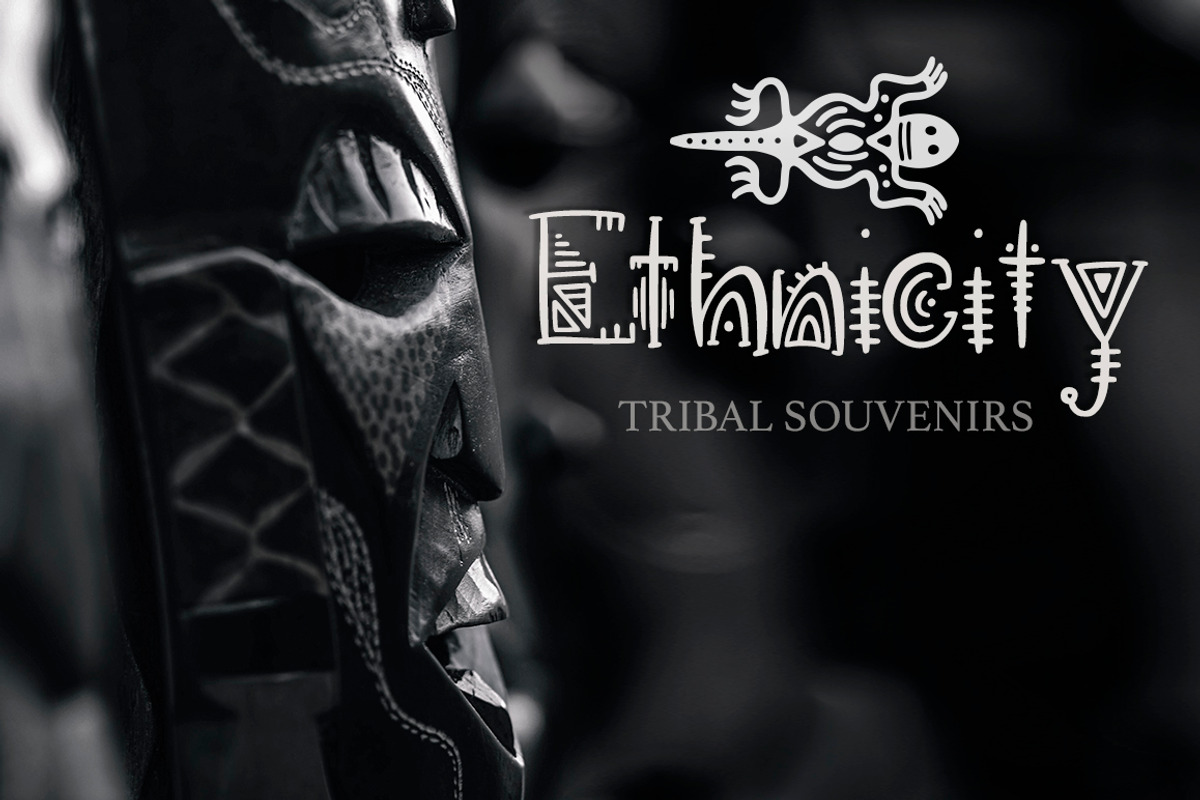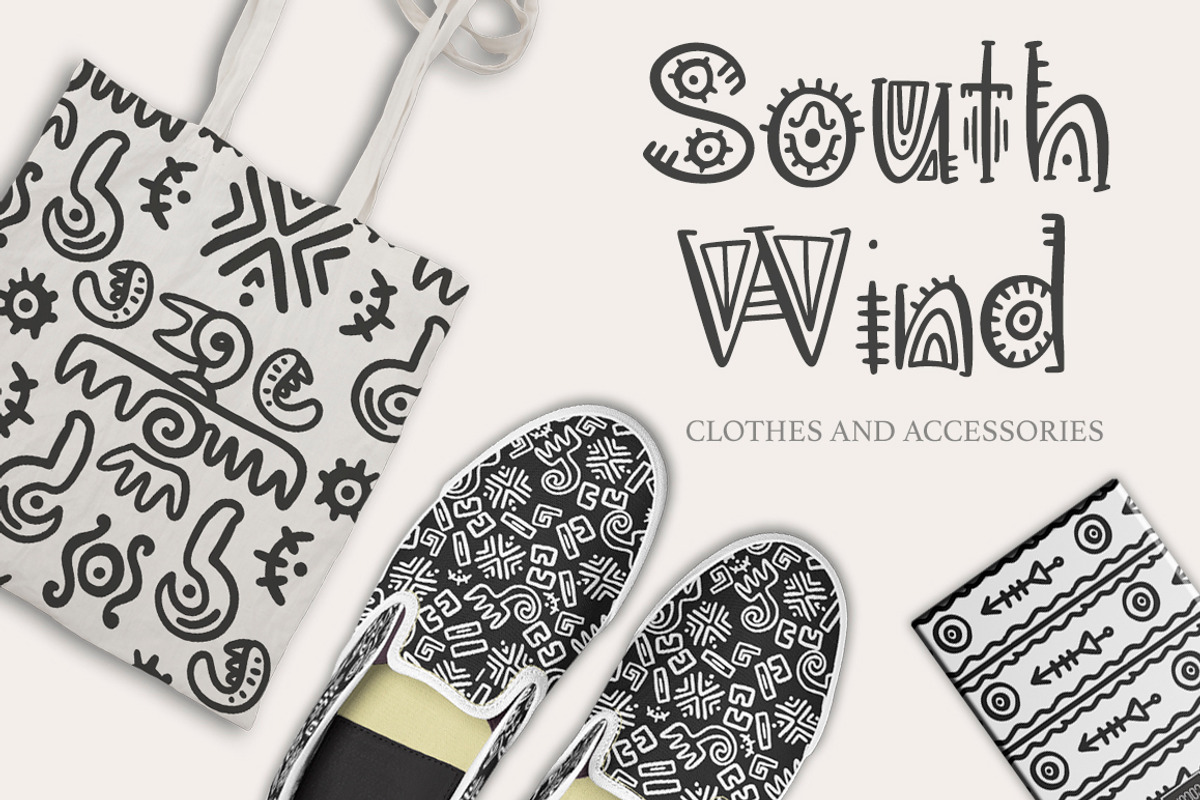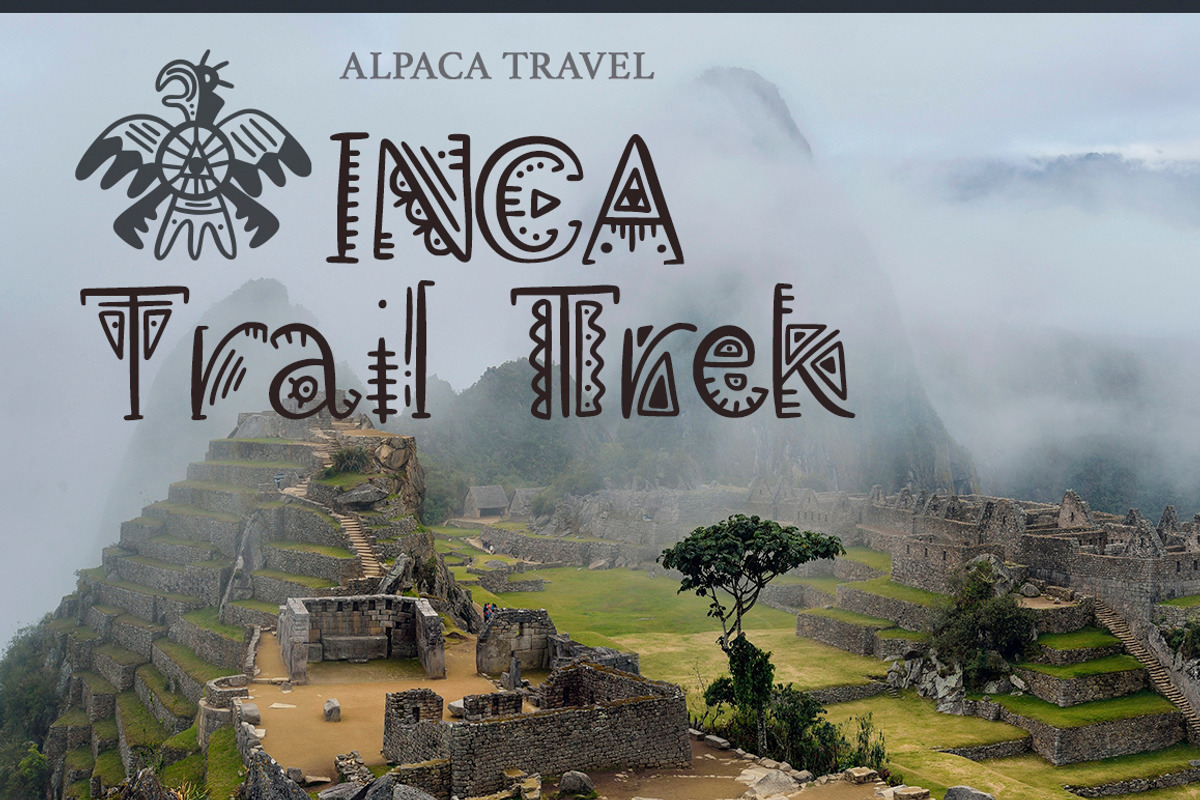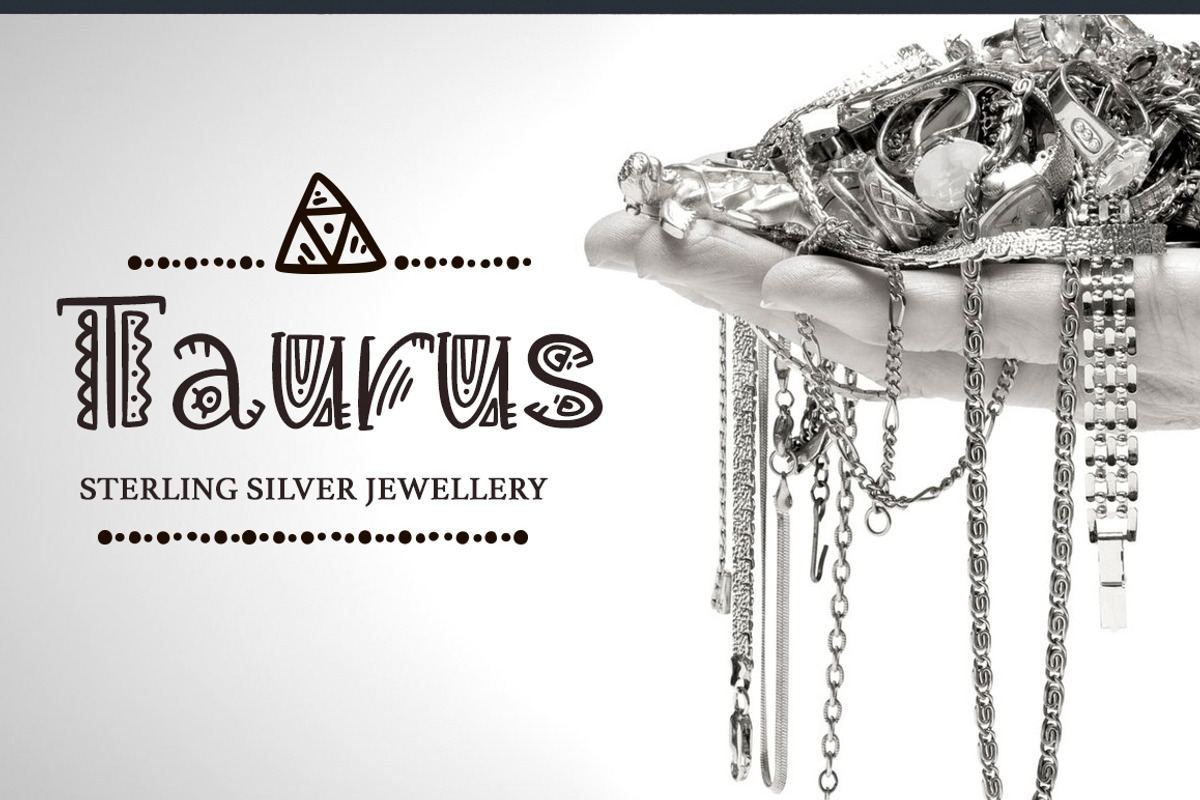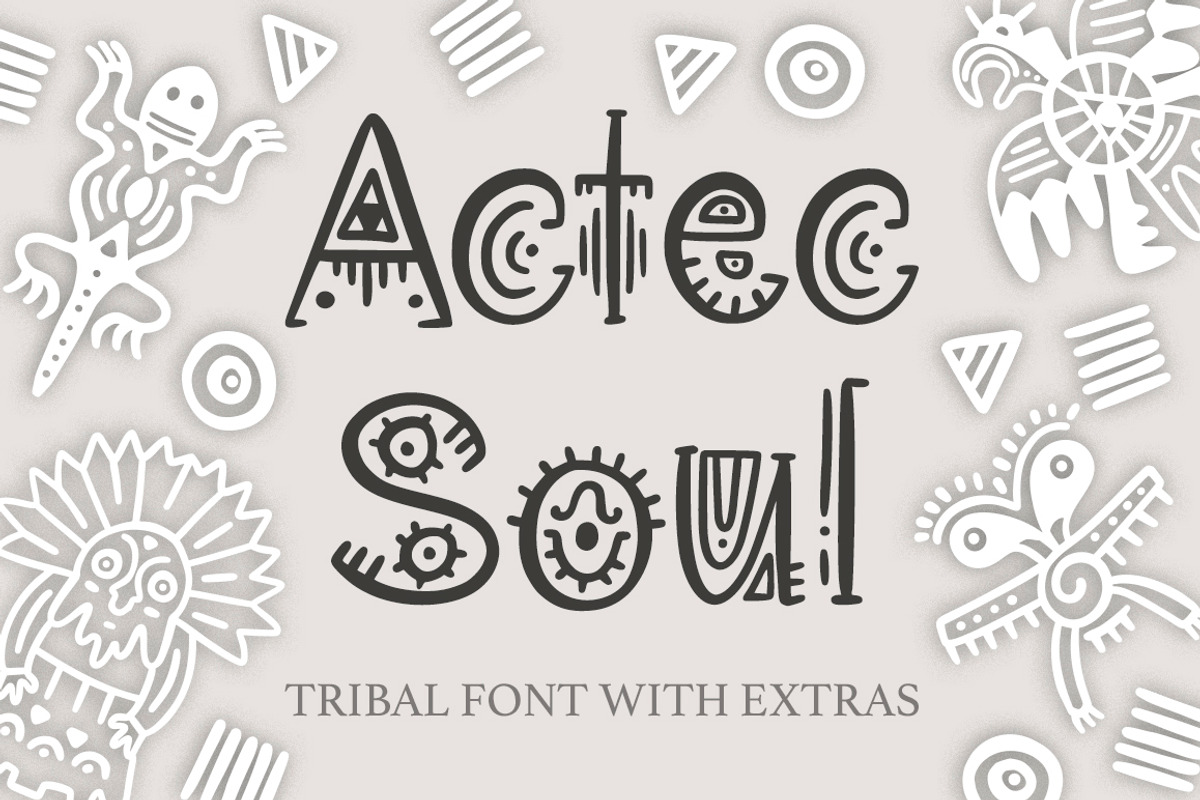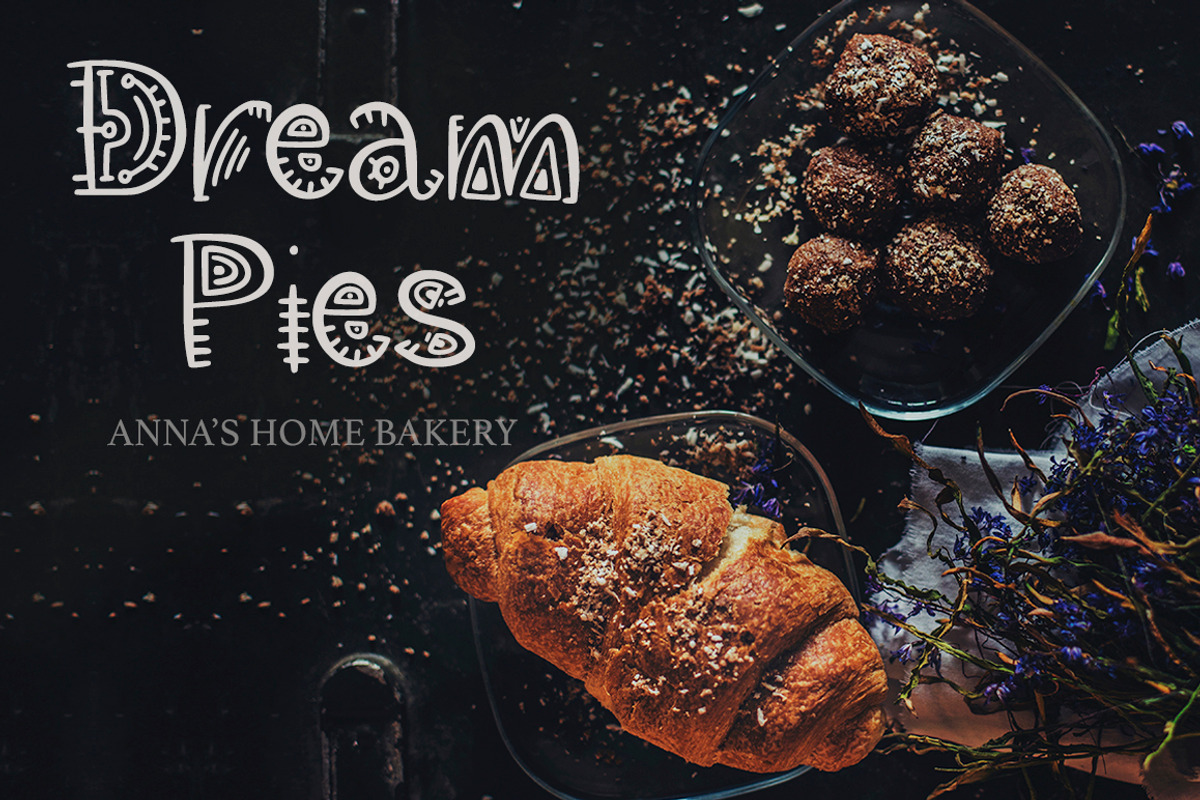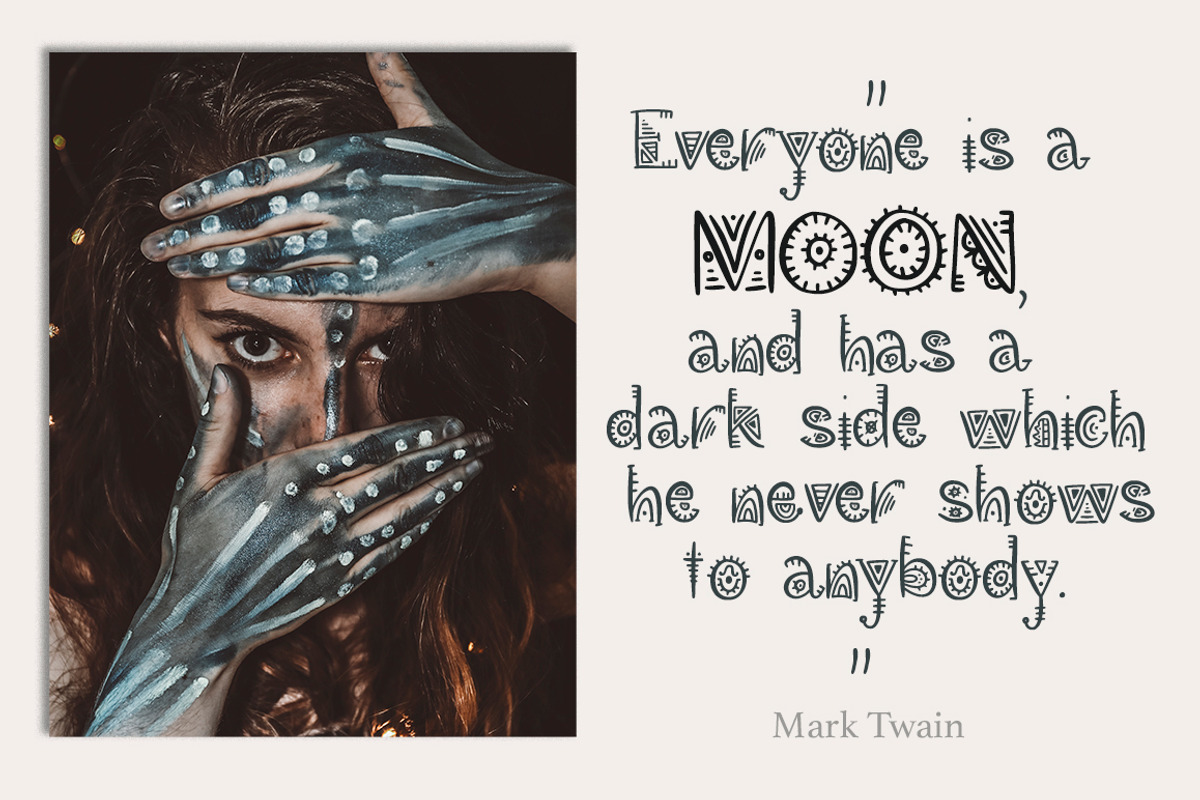
Aztec Soul. Tribal font with extras.
Introducing ‘Aztec Soul’ font!
‘Aztec Soul’ is a detailed handdrawn display font.
It has beautiful handdrawn texture of tribal Aztec ornaments in every letter. Font has full set of lowercase and uppercase letters and full set of alternate letters for them.
You also get 25 decorative Aztec ornaments elements to décor your texts, and make amazing prints for different creative things. So ‘Aztec Soul’ is not just a font, but creative set, created for beautiful typographic projects, amazing designs, like greeting cards, t-shirts, posters, mugs, branding materials, photography overlays and so much more!